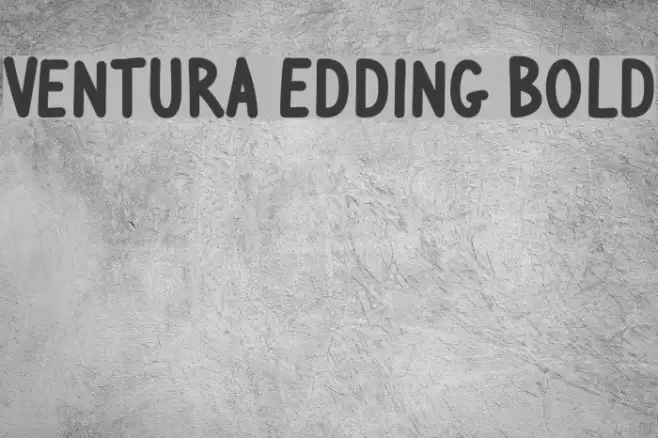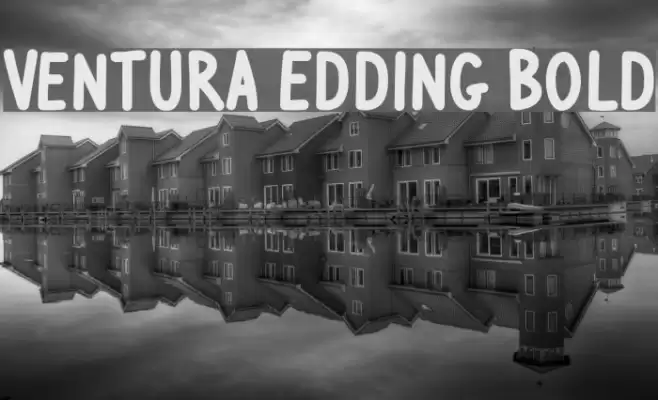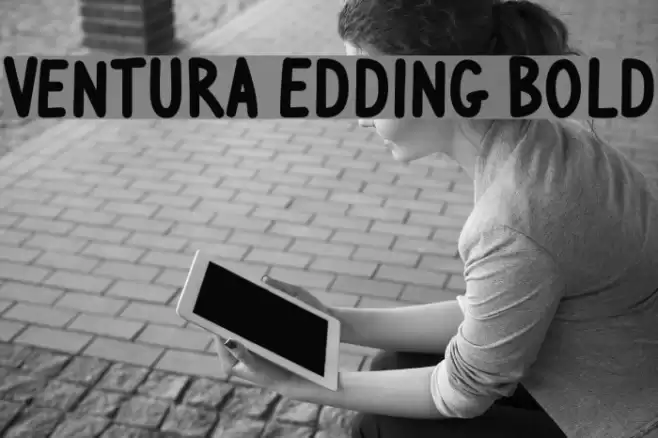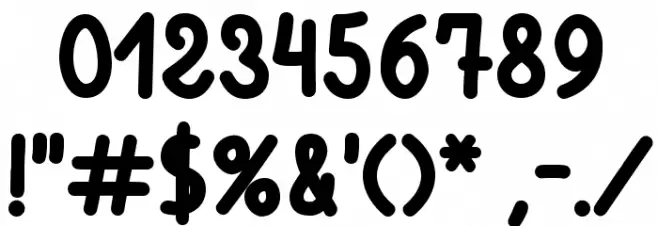
Ventura Edding Bold Font
Ventura Edding Bold Description
This font features a bold, rounded style with a playful and approachable appearance. The characters are thick and uniform, providing a strong presence on the page. The rounded edges and consistent stroke width give it a friendly and informal look, making it ideal for casual or creative projects. The font includes a full set of uppercase and lowercase letters, numbers, and a variety of special characters, ensuring versatility in design applications. Its boldness ensures readability even at smaller sizes, while the rounded forms add a touch of whimsy.
A bold, rounded font with a playful and approachable style from Comic fonts.
- Proposed Projects: Ideal for children's books, posters, logos, and branding materials that require a friendly and informal touch.
- Overall Style: Playful, Informal